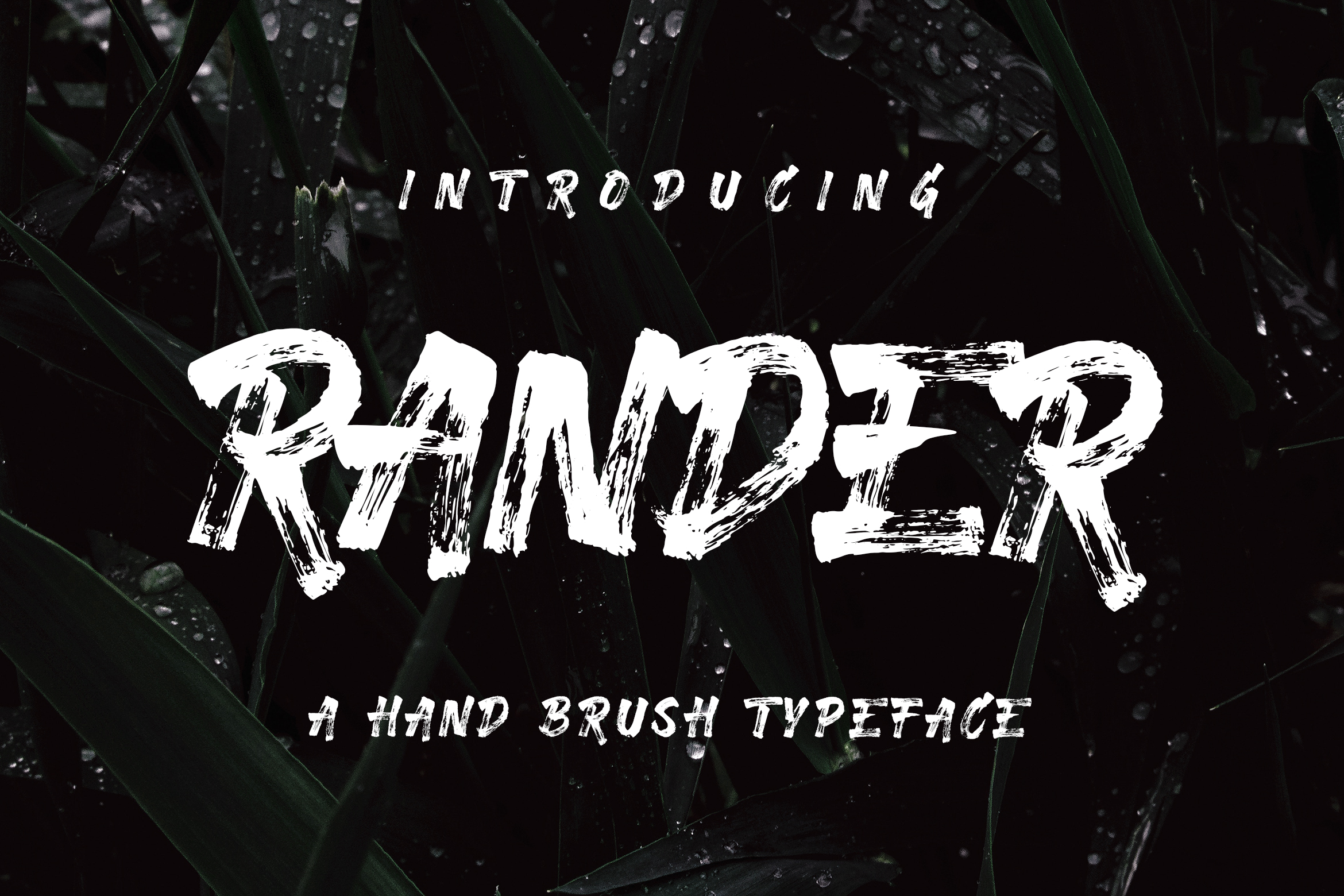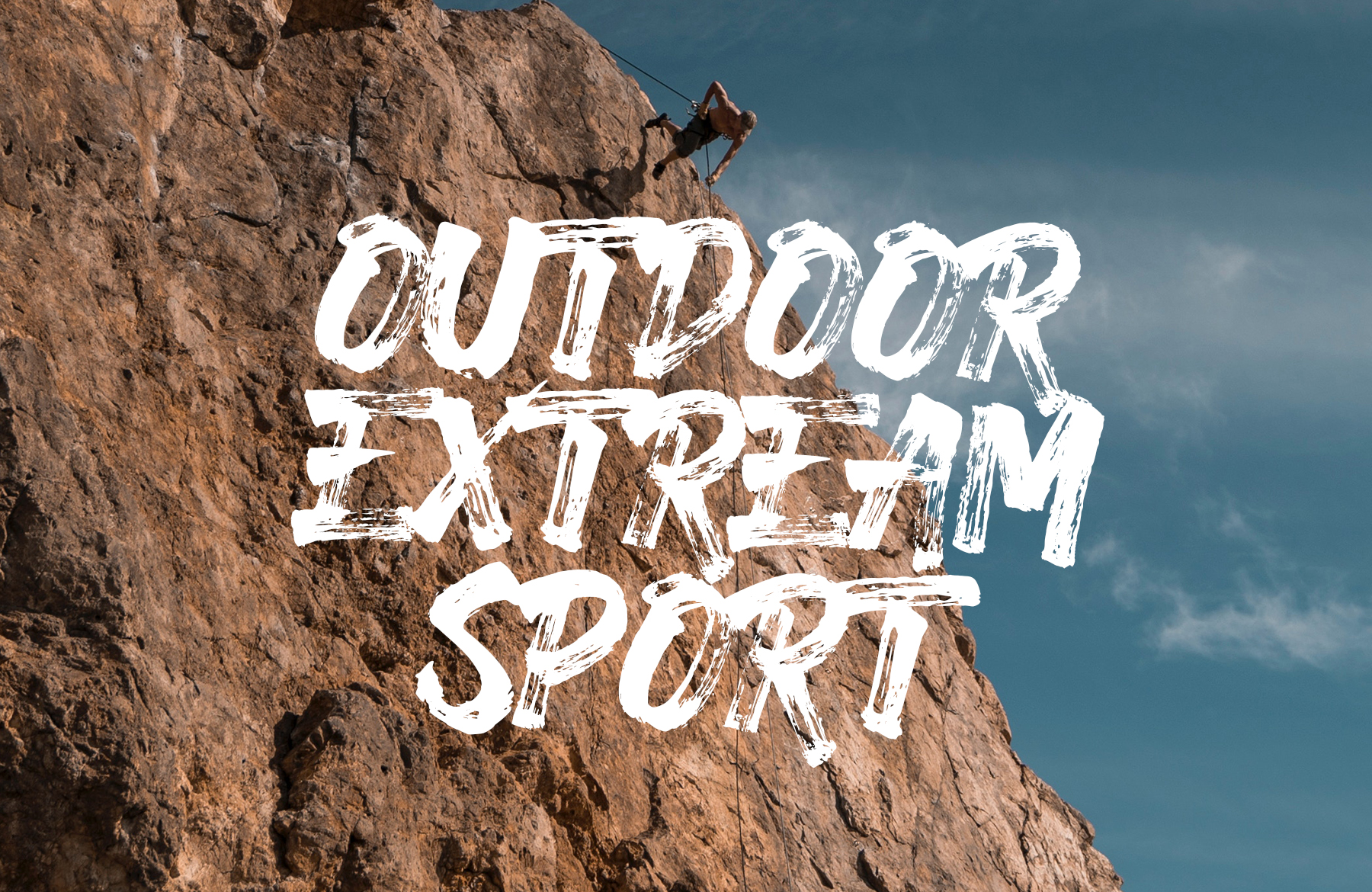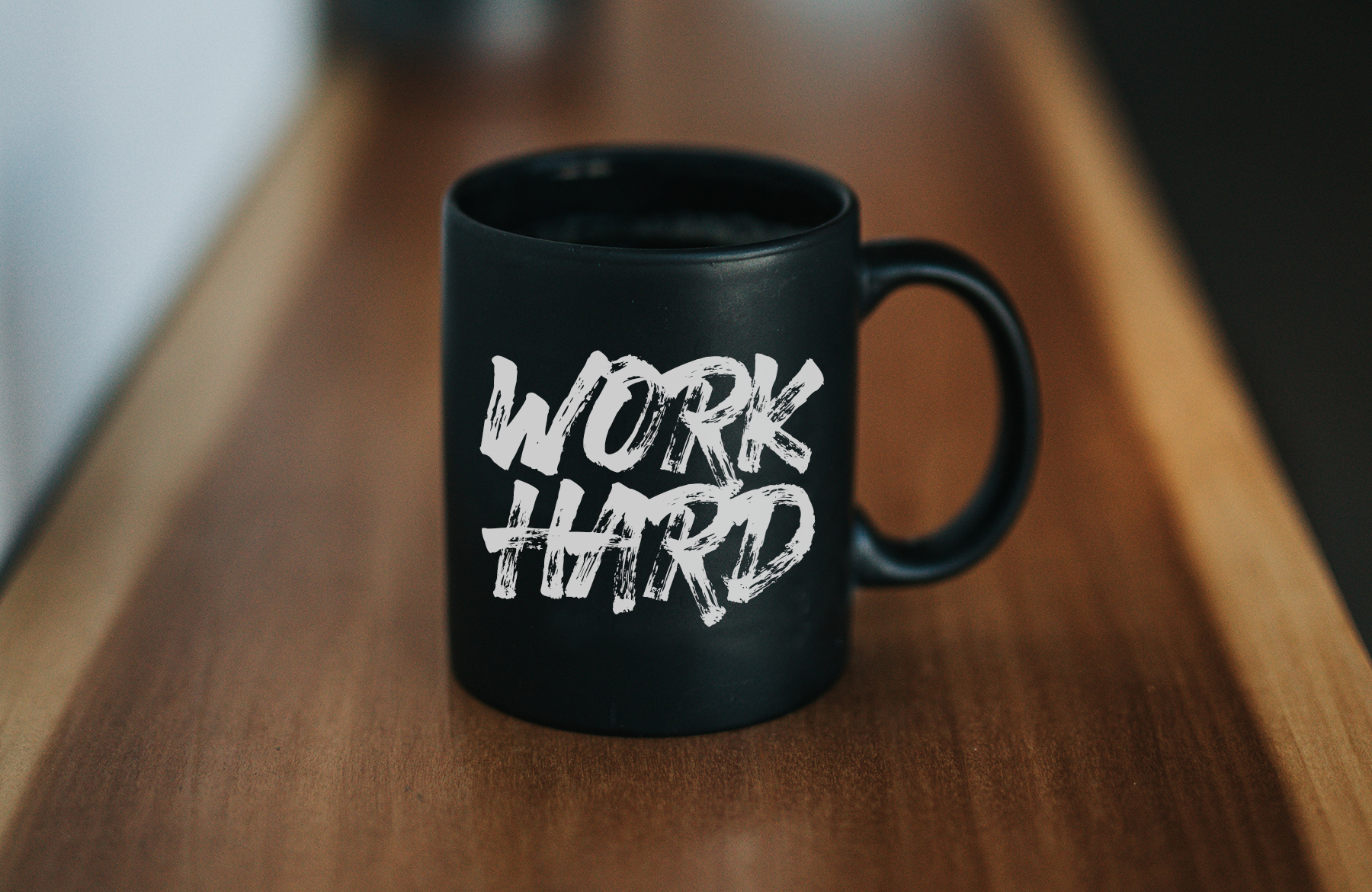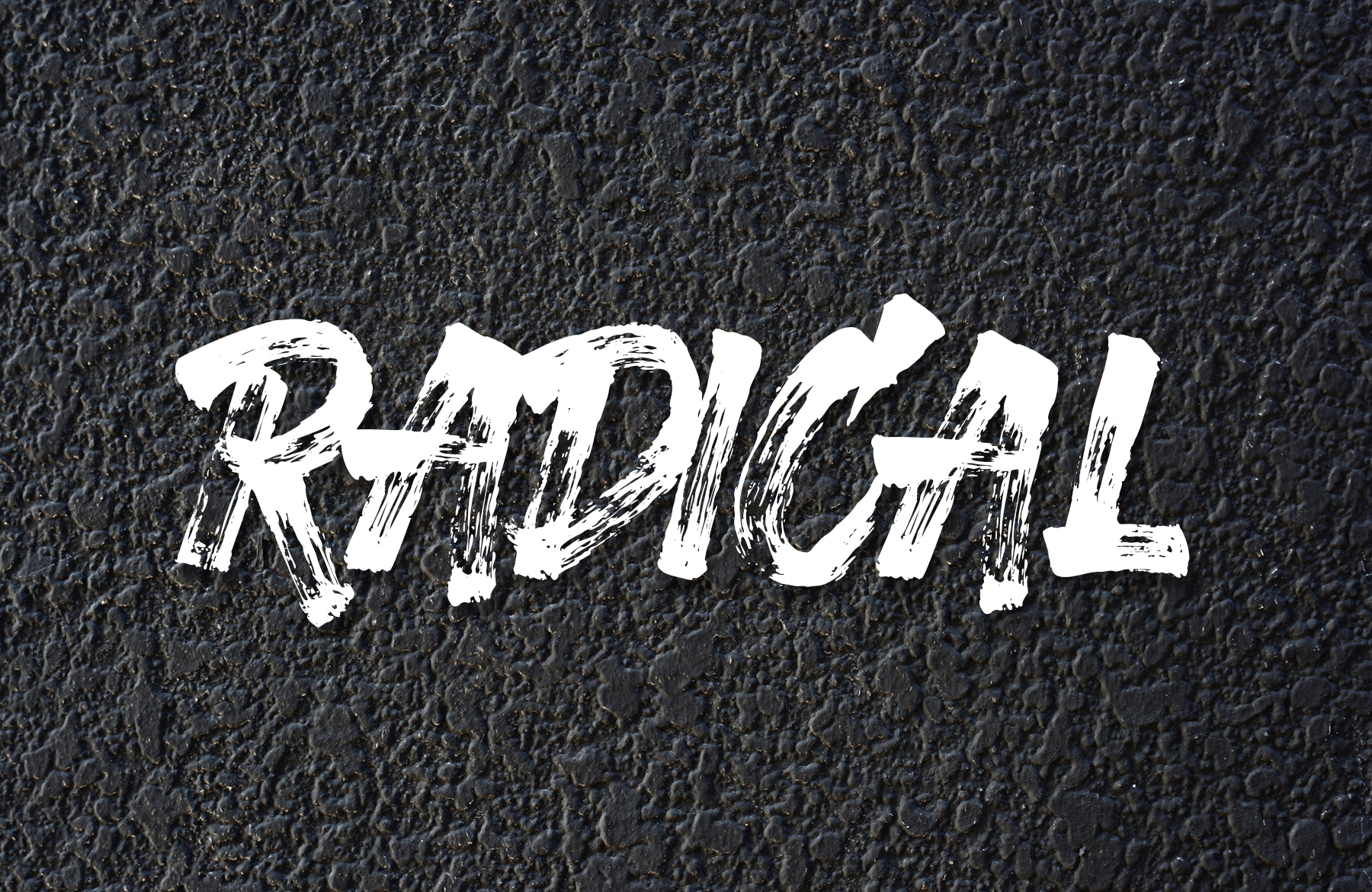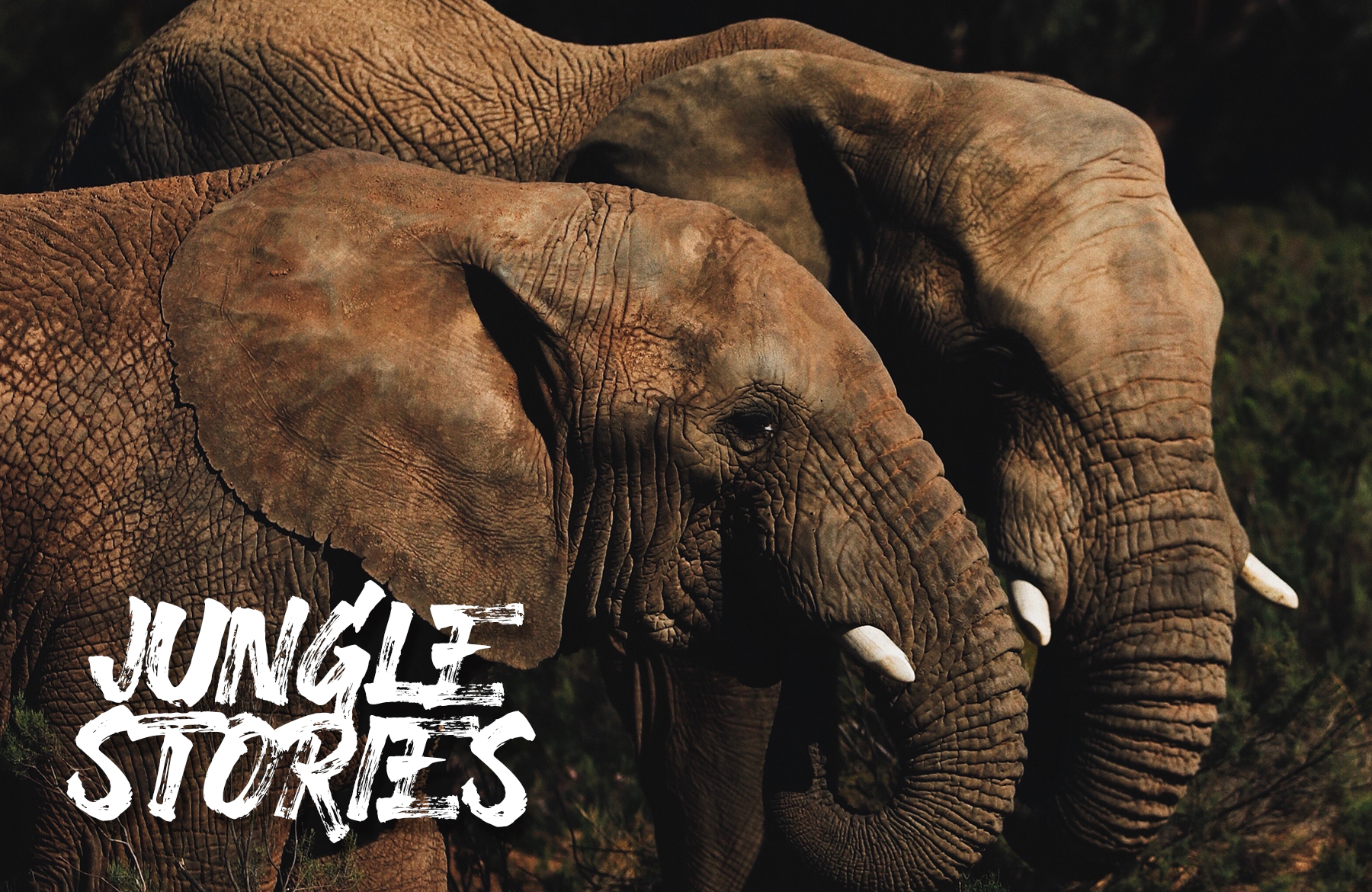
Rander Font
About Rander Font
“Rander is a freehand rough brush font with the classy style and dry brush technique. It is suitable for all design needs given its youthful and modern appeal.”